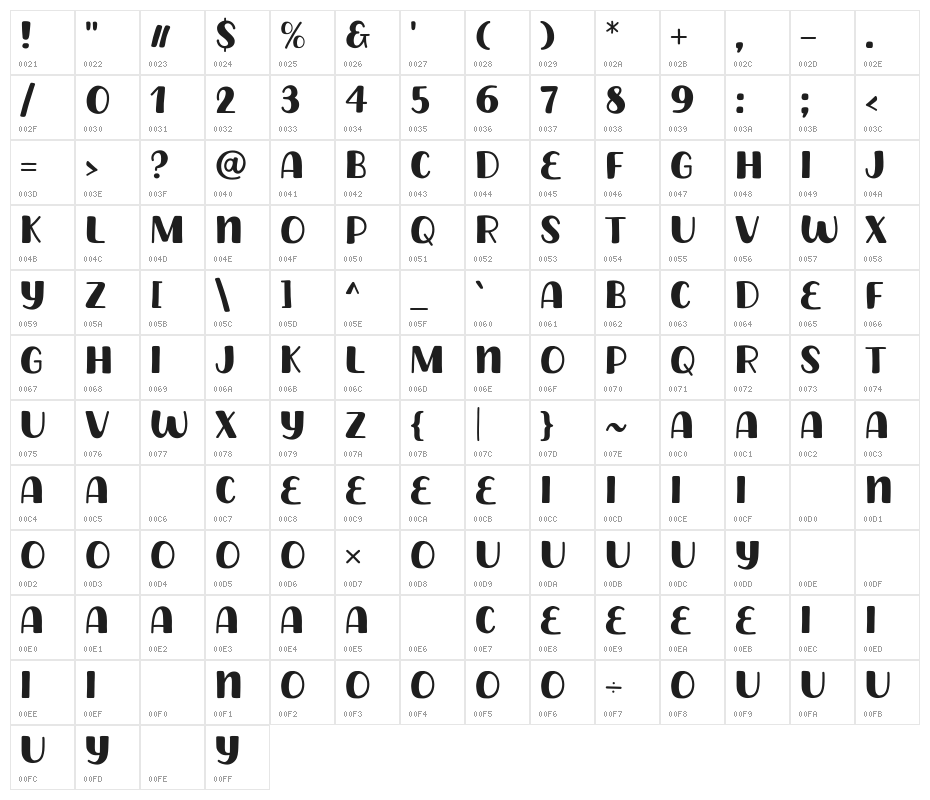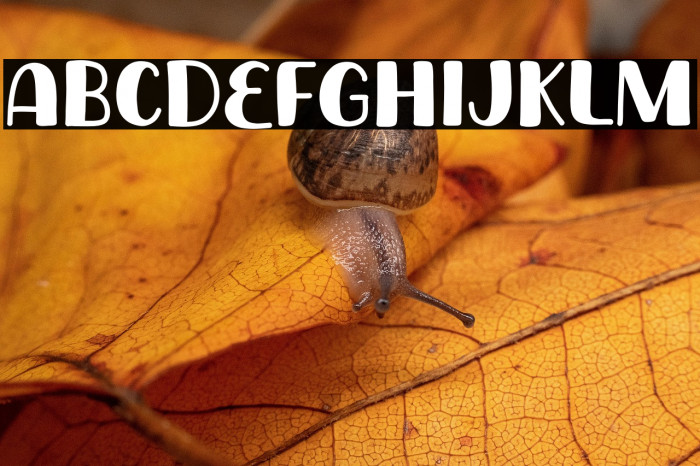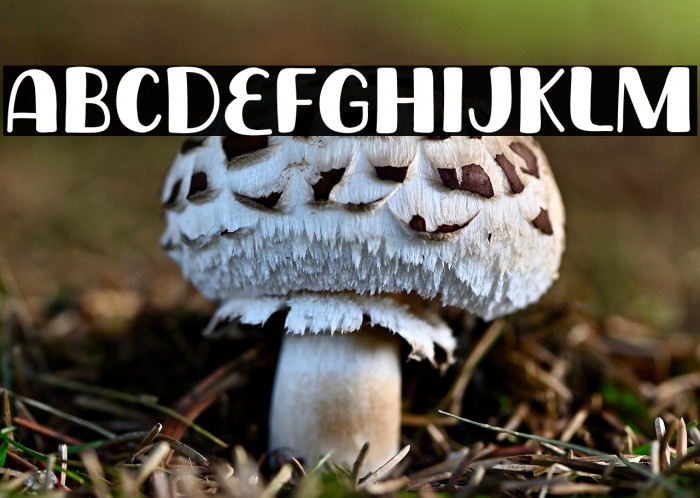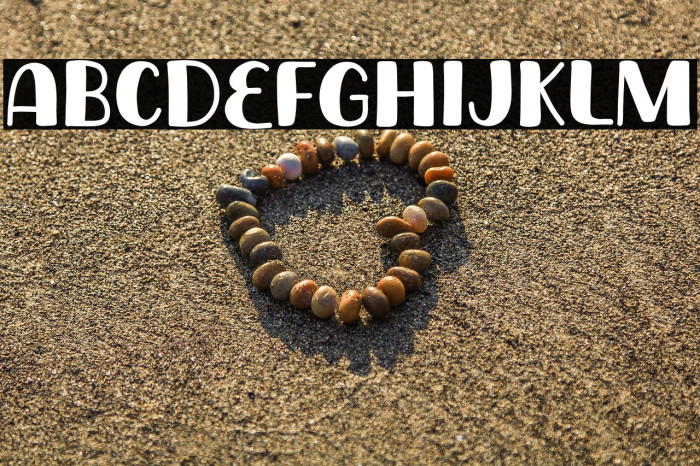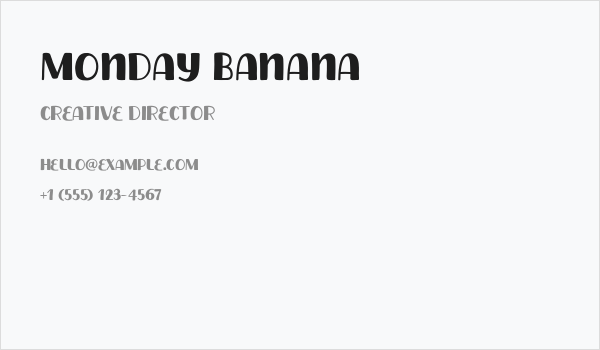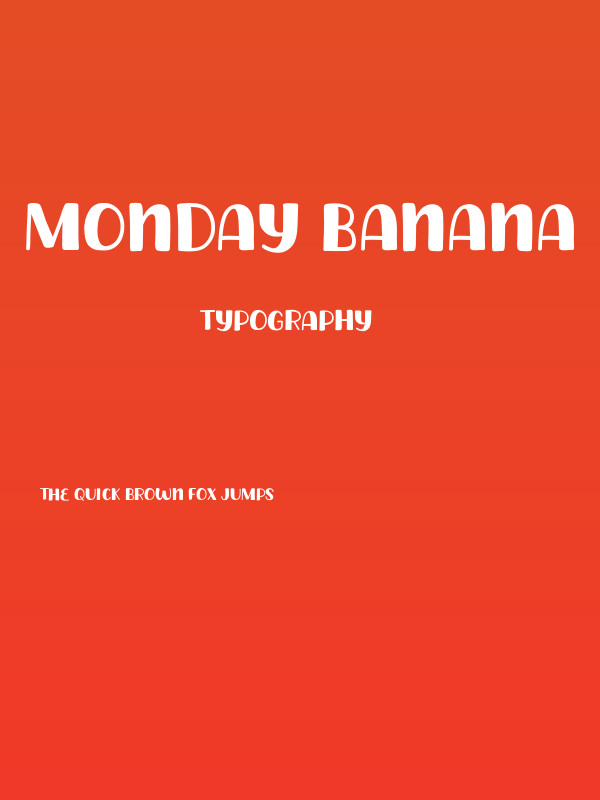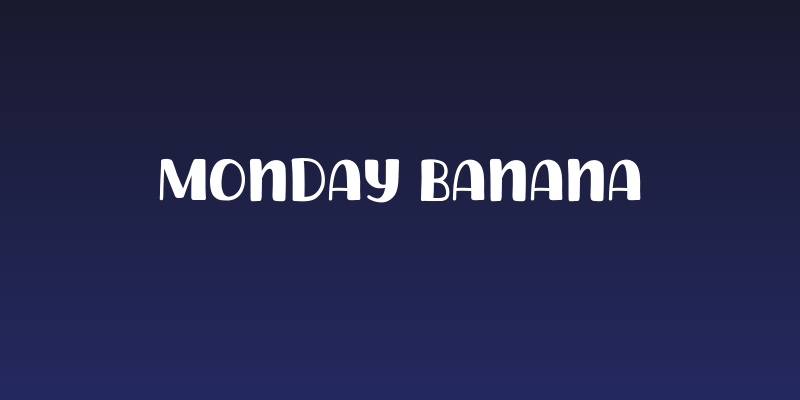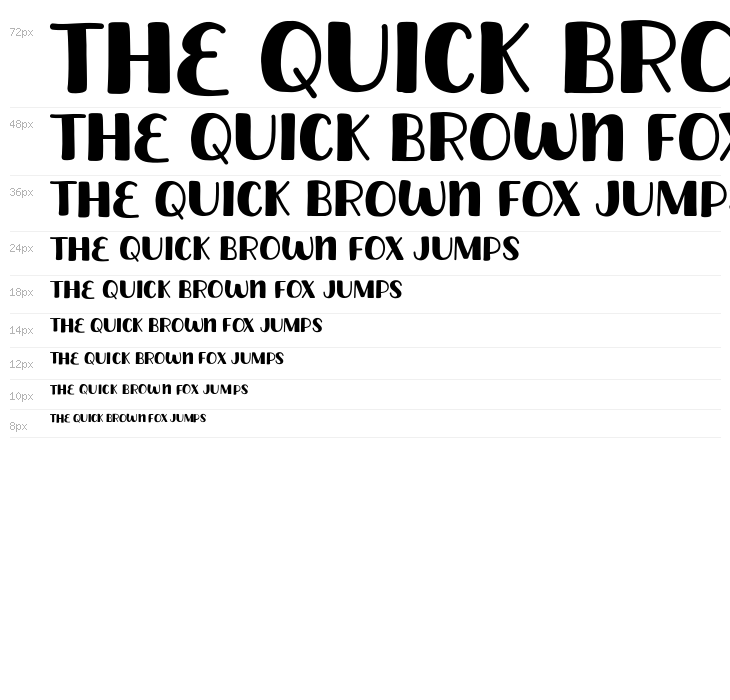
Monday Banana Font
Monday Banana Description
This font features a playful and bold style with a unique, hand-drawn appearance. The characters are rounded and slightly irregular, giving them a whimsical and friendly look. The uppercase and lowercase letters maintain a consistent weight, contributing to a cohesive design. The numbers and special characters follow the same playful aesthetic, making them suitable for creative projects. The overall design is eye-catching and modern, with a touch of vintage charm. This font is perfect for projects that require a fun and engaging typeface.
| Overall Style | Playful and Modern |
| Proposed Projects | Ideal for children's books, greeting cards, playful branding, and creative posters. |